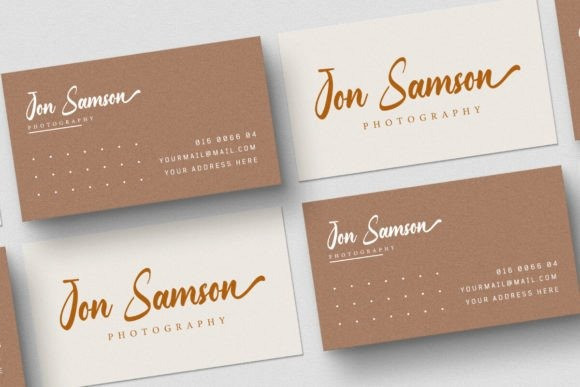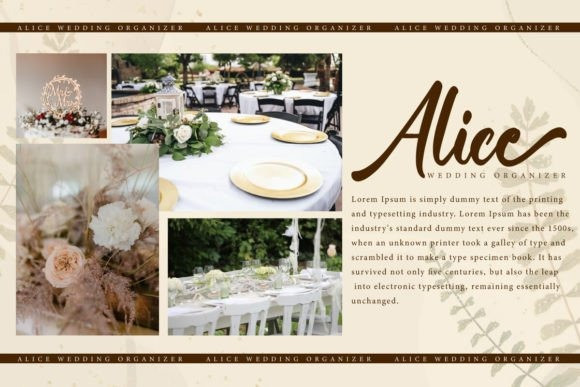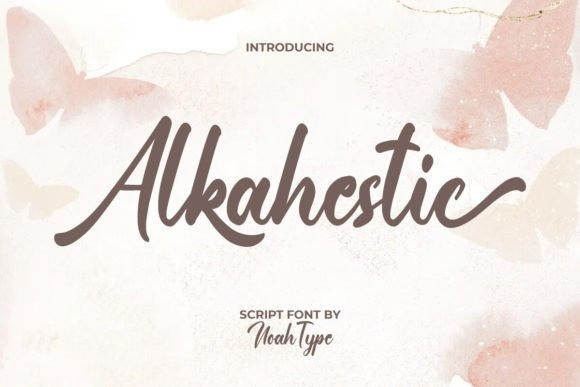
Alkahestic Font
Alkahestic Font is a stylish modern calligraphy script font with thick brushes that are neatly and carefully crafted to produce beautiful designs, such as brochure, business card, custom design, invitation, label, magazine catalog, menu, poster, product packaging, quote, website, and more!